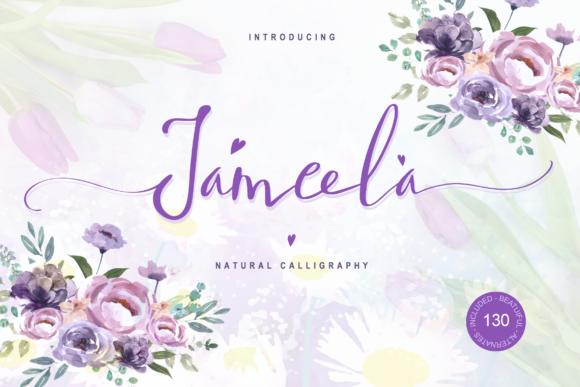
Introducing Jameela Font - The Enchanting Script for Christmas Posters
Journey into the world of festive elegance with Jameela Font, a meticulously crafted script font that will transform your Christmas posters into works of art. Designed by the talented Tigade std, Jameela captures the essence of the holiday season with its graceful curves, playful flourishes, and captivating charm.
Experience the Magic of Christmas with Jameela Font
Jameela Font is not just a font; it's an invitation to embark on a creative adventure. Its enchanting characters will dance across your posters, bringing life to your Christmas messages and spreading holiday cheer. Whether you're creating posters for festive parties, heartwarming greetings, or enchanting invitations, Jameela will add a touch of magic to every design.
Features That Make Jameela Font Irresistible:
• A Treasure Trove of Characters: Jameela Font boasts a comprehensive character set, ensuring that you have all the tools you need to create stunning posters. From uppercase and lowercase letters to punctuation marks and symbols, Jameela has everything you need to express your creativity.
• Unleash Your Artistic Potential: With Jameela Font, the possibilities are endless. Create elegant posters that evoke the nostalgia of a vintage Christmas, or design modern and eye-catching posters that reflect the vibrancy of the holiday season. Let your imagination soar and let Jameela be your artistic guide.
• A Font That Speaks to the Heart: Jameela Font is more than just a collection of characters; it's a way to express your emotions and connect with your audience. Its delicate strokes and enchanting curves will evoke a sense of warmth, love, and joy, making your Christmas posters truly unforgettable.
Take Your Christmas Posters to the Next Level with Jameela Font